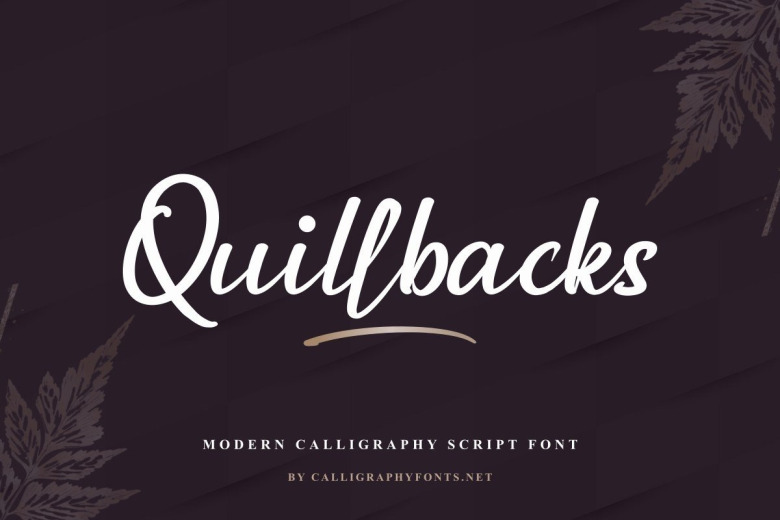
Quillbacks Font
Quillbacks Script Font is a modern Handwriting calligraphy font. The style of this font are casual, lovely, contemporary, modern, elegant, luxury and classic brush font.